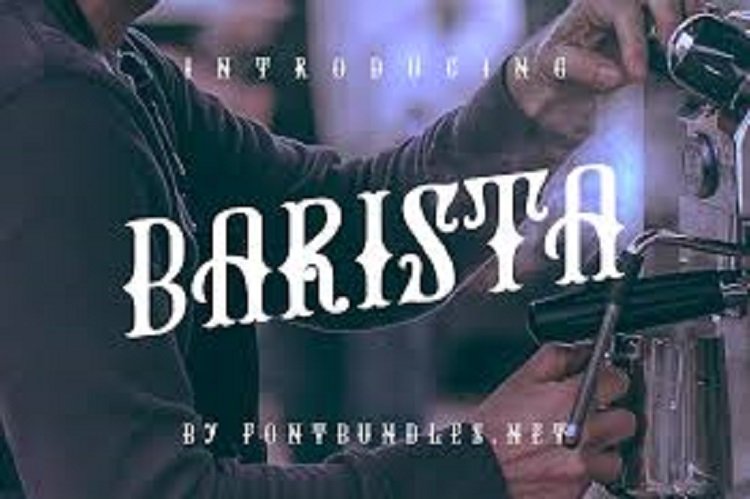
Barrista Font
Barrista is a unique hand-drawn free font to give a classy personal touch on your design. It designed to use as display typeface and headline purposes.